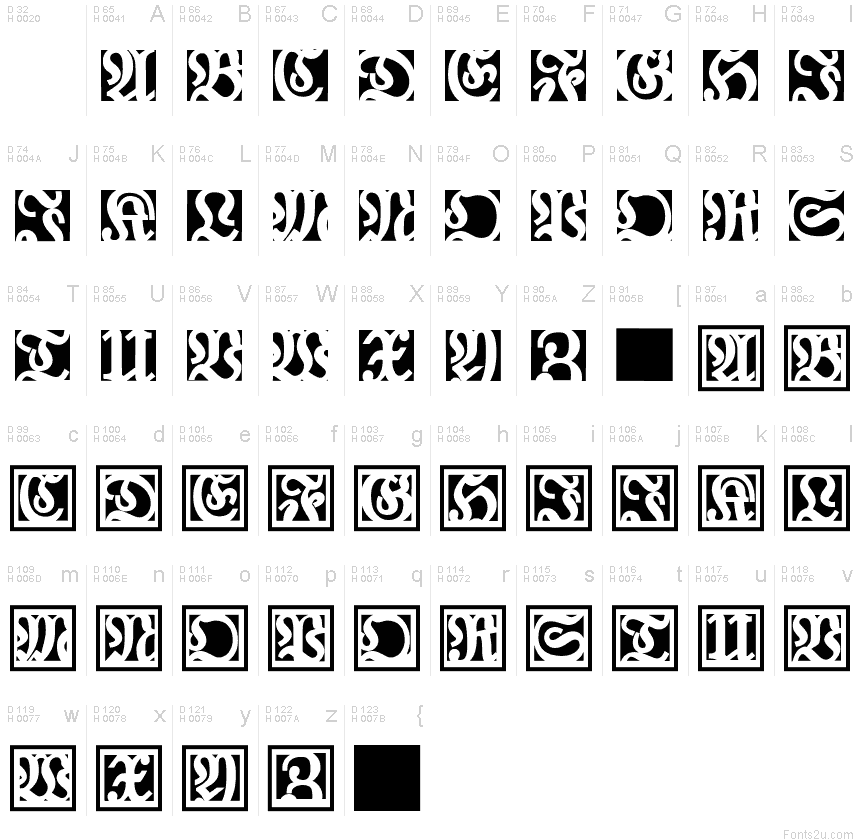
FraxBrix by M Klein is a free medieval initials font built from dense, interlocking curves and sharp cuts. Its letterforms resemble carved or illuminated capitals, with broad strokes folding into compact ornamental shapes and small wedges of open space.
FraxBrix